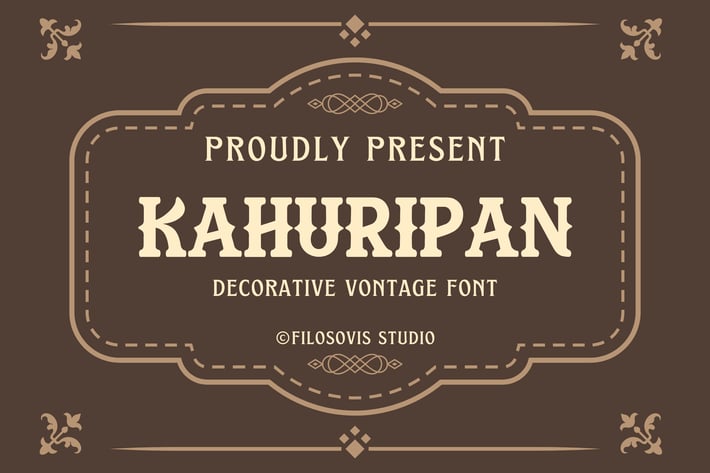
Kahuripan | Decorative Vontage Font
For your creative project, use the Kahuripan-themed Decorative Vontage Font. Decorative Vontage Font is appropriate for every kind of design you produce, including greeting cards, posters, logos, and branding.